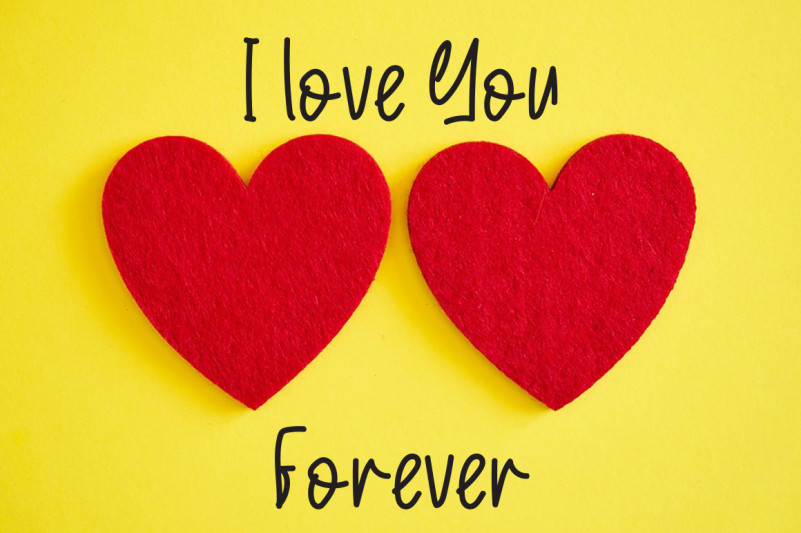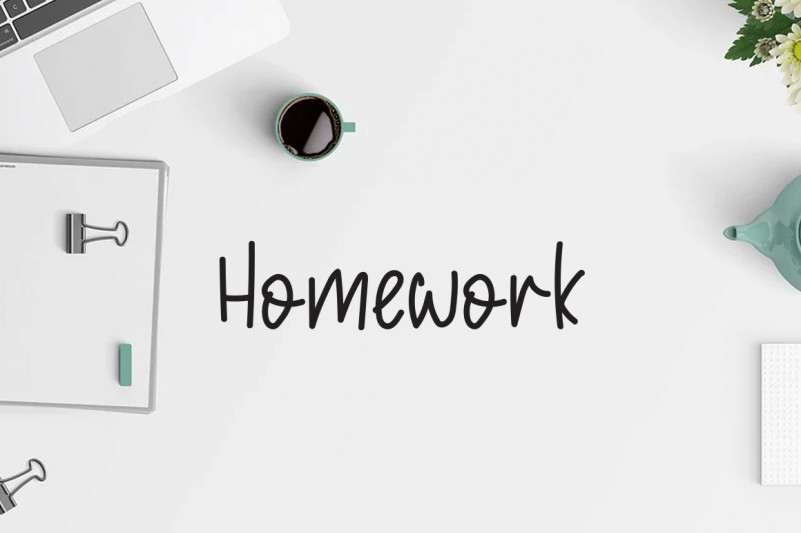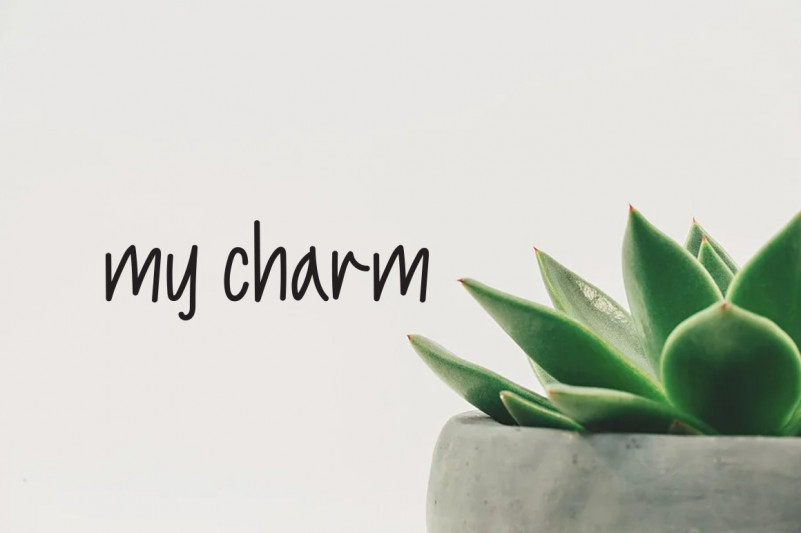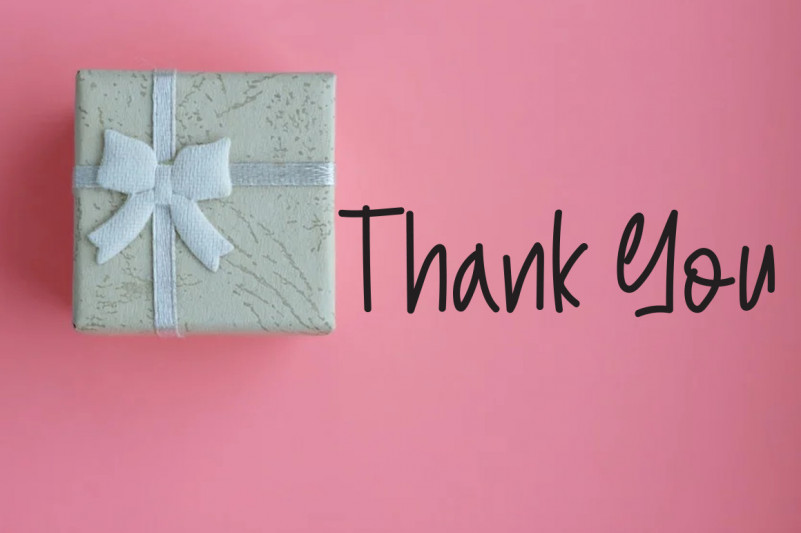
Humble Request Font
Humble Request Handwritten Font
This is a unique, fun and friendly handwritten font. Whether you’re looking for a font for Instagram or a calligraphy script for a DIY project, this font will turn any creative idea into a true work of art!